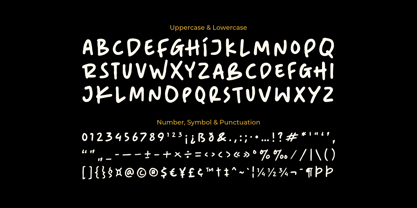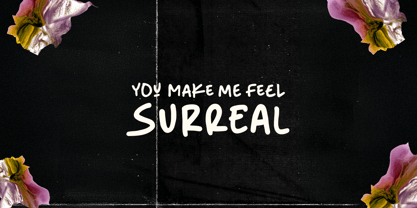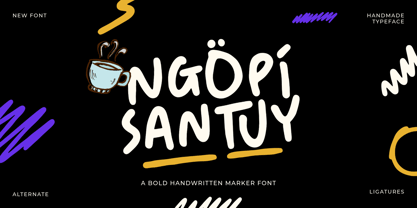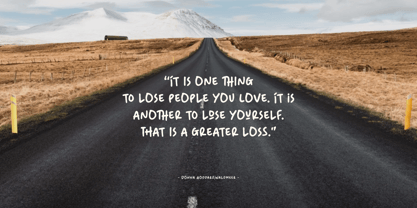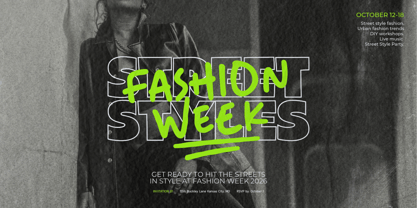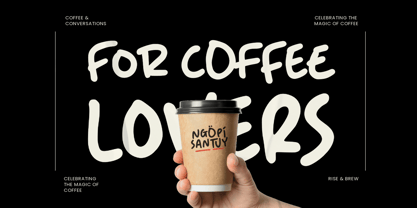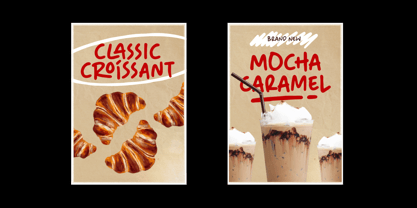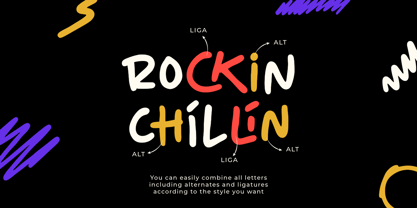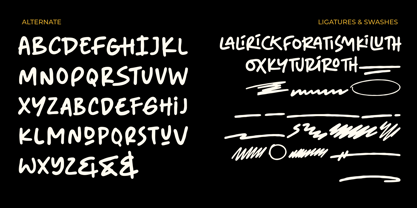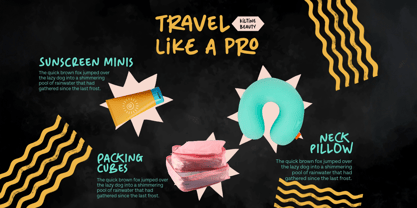
Ngopi Santuy
by Jinan Studio
The Ngopi Santuy Font Family was designed by Andi Syahdang, Ainun Jinan and published by Jinan Studio. Ngopi Santuy contains 1 styles.
Ngopi Santuy is a bold handwritten marker font that brings casual energy and chill vibes to your design. Inspired by hand-drawn coffee shop signs and laid-back lettering styles, this font blends playful imperfection with bold confidence. Perfect for logos, posters, packaging, t-shirts, quotes, and social media graphics, Ngopi Santuy makes your text look effortlessly cool and friendly. With alternates and ligatures included, you can easily mix and match for a more natural, handwritten feel. Whether you’re designing for a coffee brand, lifestyle project, or creative merchandise, Ngopi Santuy adds that handmade touch that feels warm, fun, and full of personality. Features A set of uppercase and lowercase glyphs Number, symbol, and punctuation Alternates Ligatures & Swashes Multilingual Support
About Jinan Studio
Jinan Studio, founded by Ainun Jinan, is a font studio based in Makassar City, Indonesia. With a focus on handmade typography. With three years of experience, the studio creates unique, visually captivating, and expressive fonts that can be used in various design projects. Their commitment to craftsmanship and attention to detail sets them apart, while their personalized approach and dedication to customer satisfaction make them a reliable choice for clients.